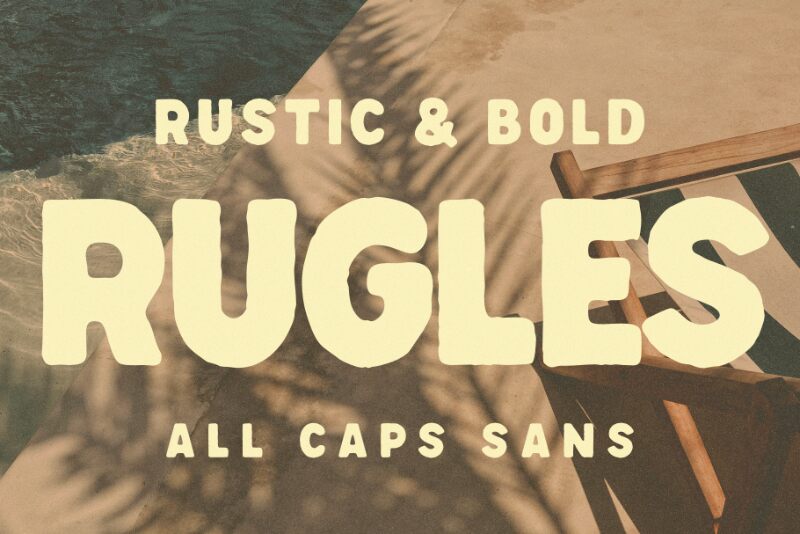
Rugles font
Rugles
RUGLES (Previously GILDSLEY) Bold Rough Headline Font
Craving a typeface that dominates the spotlight? RUGLES brings raw, rough strokes fused with standout letterforms, setting a new standard for high-impact visuals across various markets.
The bold, rough forms offer eye-catching shapes that refuse to blend in, while standout legibility ensures crisp readability, even in dense layouts. With its urban edge and versatility, RUGLES is perfect for streetwear, event posters, artisanal packaging, and more.
High-impact branding is amplified with an industrial backbone, presenting a rebellious aesthetic that is modern and fearless. This font is ideal for brands seeking to break the mold.
RUGLES supports 202 languages, providing a global reach without limitations. Designed for creative professionals and brands that need a bold identity, this font is suitable for everything from streetwear labels to movie and documentary promotions, events, and beyond. RUGLES makes a statement in high-energy niches that demand an urban, edgy vibe.
By merging industrial toughness with a rebellious spirit, RUGLES sparks excitement in audiences looking for fearless design. It taps into the drive to stand out, inspiring confidence and daring creativity.